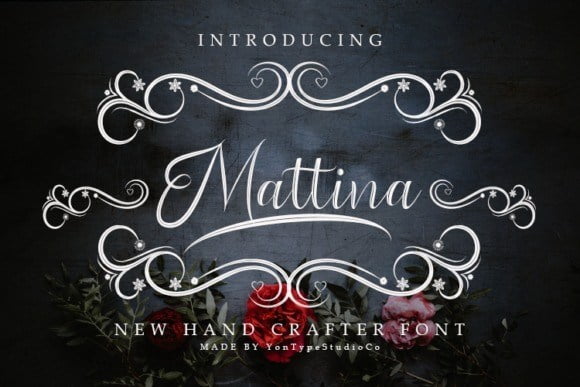
Mattina Calligraphy Font
Mattina Font comes with uppercase, lowercase, numerals, punctuations and so many variations on each characters include opentype alternates.
Mix and match this font with a bunch of alternative to fit your project. This font gives you so many options to create something unique.
This font is great for your design project such as logos, posters. invitations cards, packaging, badges, logotype, apparel design, Label, and etc.